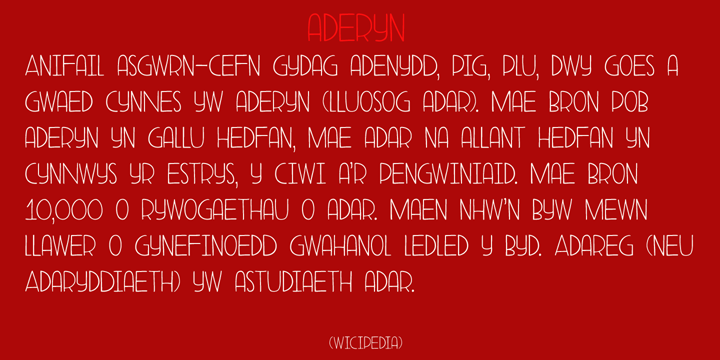
Aderyn
by Hanoded
The Aderyn Font Family was designed by David Kerkhoff and published by Hanoded. Aderyn contains 12 styles.
Aderyn is a hand drawn, elegant font with a light touch to it. Aderyn is soft and sleek, but also comes in bolder styles to give a little extra oomph to your designs. Aderyn is Welsh for 'bird', a language I meant to master, but never took beyond 'good morning', 'bird' and 'cat'. I know, it's pathetic… Aderyn comes in 12 styles, all of which have kerning, stylistic and contextual alternates for both lower and upper case letters. It even has a smiley!
About Hanoded
Hanoded is run by Dutchman David Kerkhoff. His fonts are a mishmash of styles, as he just creates whatever pops into his head. You will find a lot of brush fonts in his collection, as his favourite tools are brushes and Chinese ink, with cartoon style fonts and script fonts complementing his repertoire. Aside from making fonts, David occasionally guides tours in far-flung places, renovates his '30's house and tries reasoning with his wife and (teenage) kids. Not an easy task!